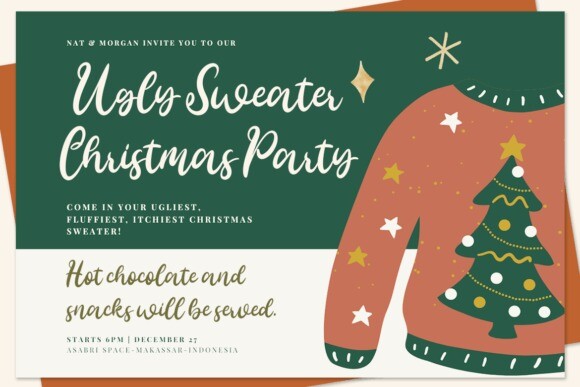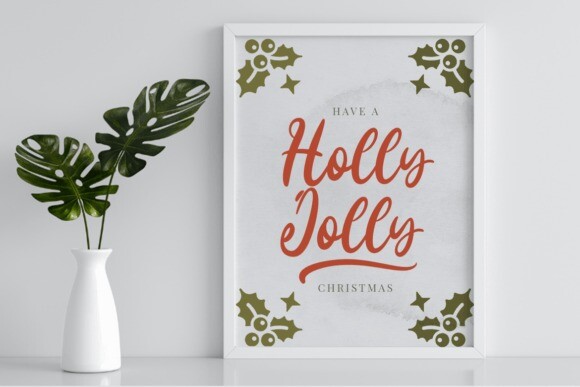
Caramel Delight Font
Caramel Delight is a beautiful and modern script font, defined by simplicity and style. Whether you’re looking for fonts for Instagram or calligraphy scripts for DIY projects, this font will turn any creative idea into a true piece of art!